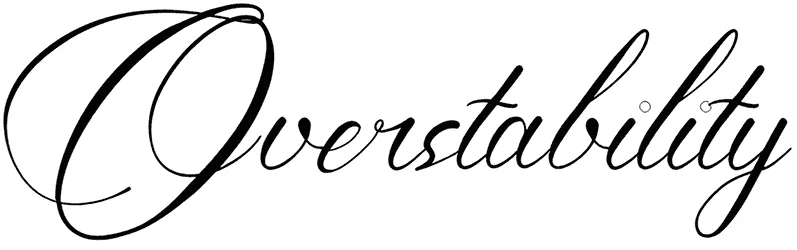
Overstability Font
True beauty is the only term that can be used for describing a script font such as Overstability, which comes with a cursive design. Due to the sophisticated typeface, reading its characters might be a hassle, but don’t forget that this carries a sense of personalization, professionalism, softness, and precision.
If you really need to add a handwritten touch to your creative artwork, it is better to ignore not support for numbers and punctuation.